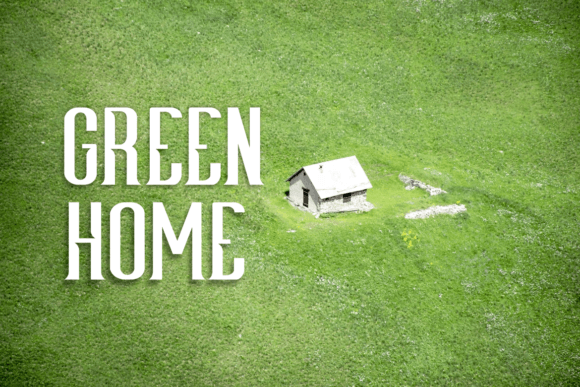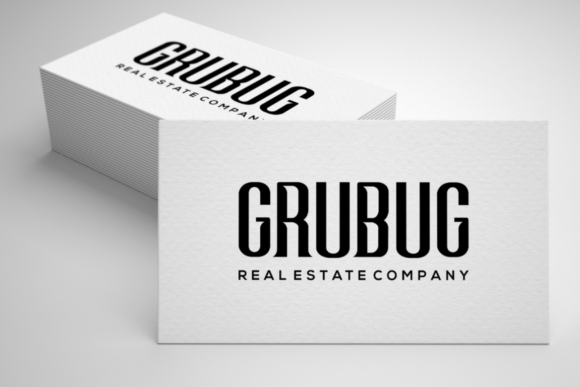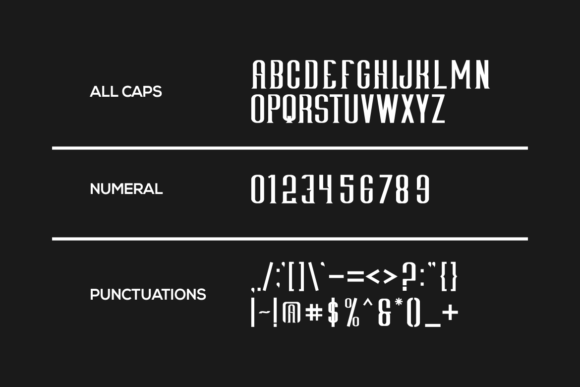
Introducing Grubug Font: The Cool and Modern Display Font You Need
Are you tired of using the same old fonts in your design projects? Do you want to add a touch of modernity and coolness to your creations? Look no further than Grubug Font! This stunning display font is perfect for designers and crafters who want to take their work to the next level. In this article, we’ll dive into the world of Grubug Font and explore its features, benefits, and uses.
What is Grubug Font?
Grubug Font is a modern display font designed to make a statement. Its unique and stylish letterforms are perfect for headlines, titles, and other display purposes. The font is characterized by its clean lines, bold shapes, and edgy vibe. Whether you’re working on a branding project, a website, or a craft project, Grubug Font is sure to turn heads.
Key Features of Grubug Font
- Modern and Cool Design: Grubug Font boasts a fresh and contemporary design that’s perfect for modern designs.
- Highly Versatile: This font can be used for a wide range of projects, from branding and advertising to web design and crafting.
- Easy to Read: Despite its bold and edgy design, Grubug Font is highly legible, making it perfect for headlines and titles.
- Unique Letterforms: Grubug Font features unique and stylish letterforms that will add a touch of personality to your designs.
Benefits of Using Grubug Font
So, why should you choose Grubug Font for your next project? Here are just a few benefits of using this amazing font:
- Adds a Touch of Modernity: Grubug Font will instantly update your designs and give them a modern and fresh feel.
- Stand Out from the Crowd: With its unique and stylish design, Grubug Font will help your designs stand out from the crowd and grab attention.
- Perfect for Display Purposes: Grubug Font is designed specifically for display purposes, making it perfect for headlines, titles, and other attention-grabbing elements.
Uses of Grubug Font
Grubug Font is a highly versatile font that can be used for a wide range of projects, including:
- Branding and Advertising: Use Grubug Font to create eye-catching logos, ads, and marketing materials.
- Web Design: Add a touch of modernity to your website with Grubug Font, perfect for headlines, titles, and other display elements.
- Crafting and DIY Projects: Use Grubug Font to add a personal touch to your crafting and DIY projects, such as signs, posters, and cards.
- Social Media Graphics: Create stunning social media graphics with Grubug Font, perfect for grabbing attention and driving engagement.